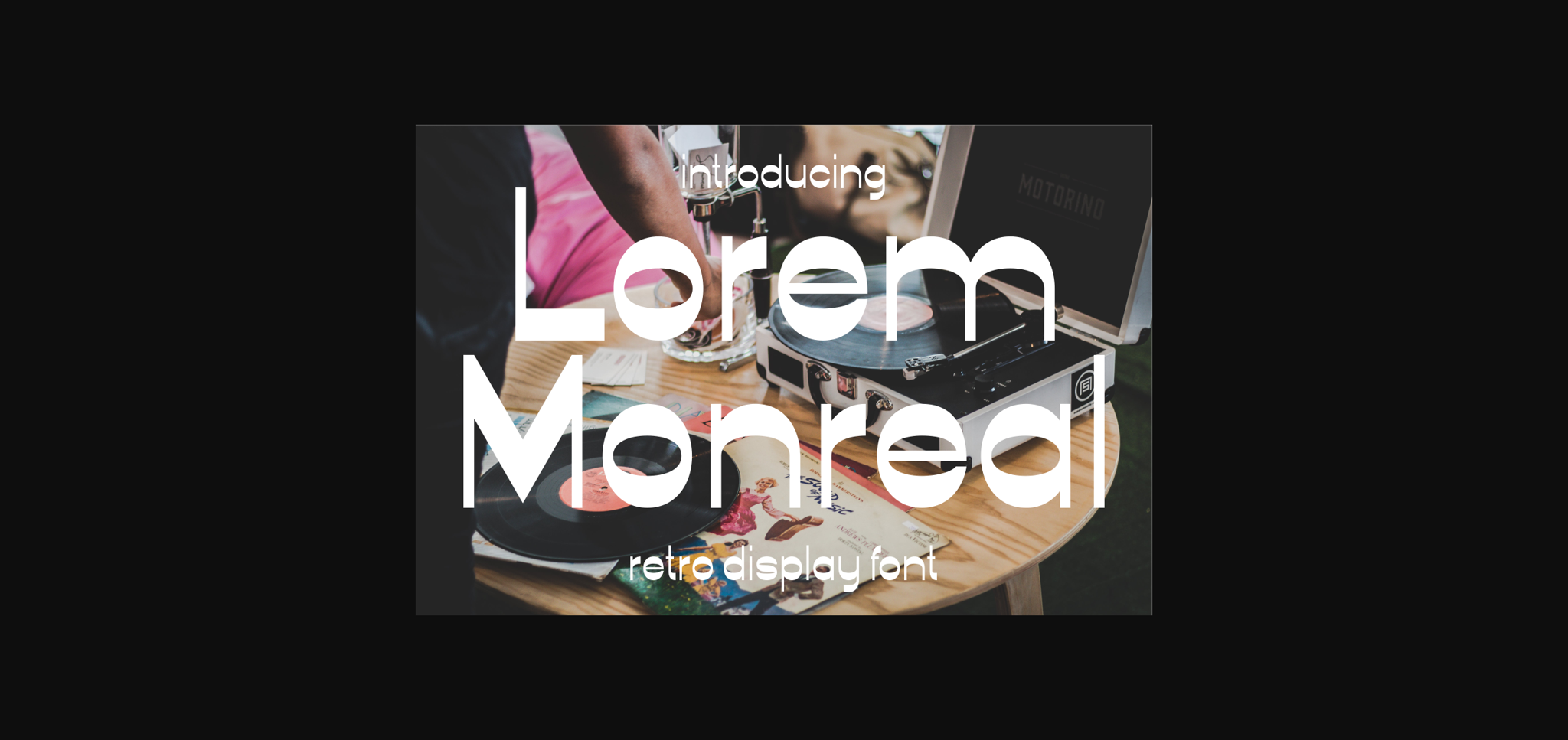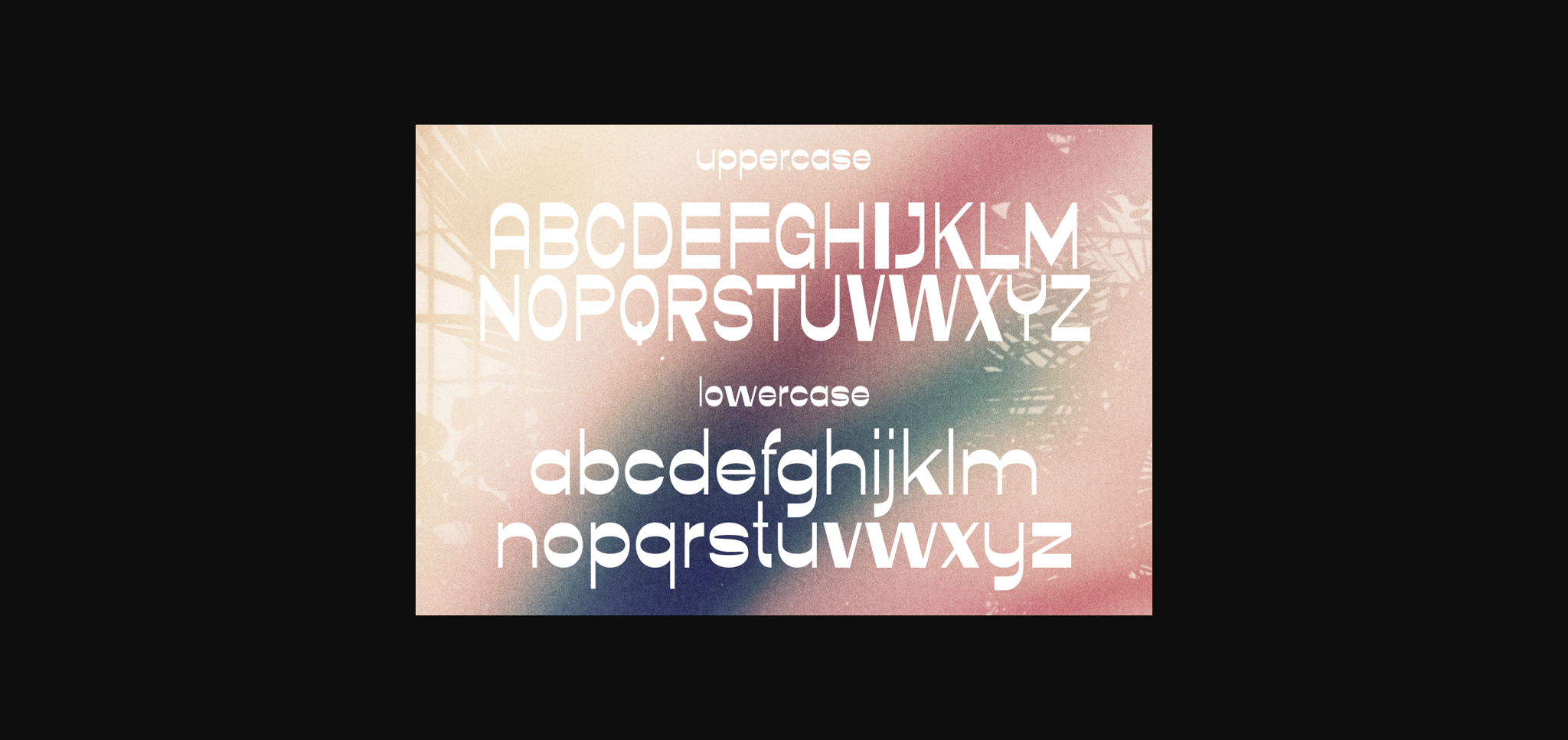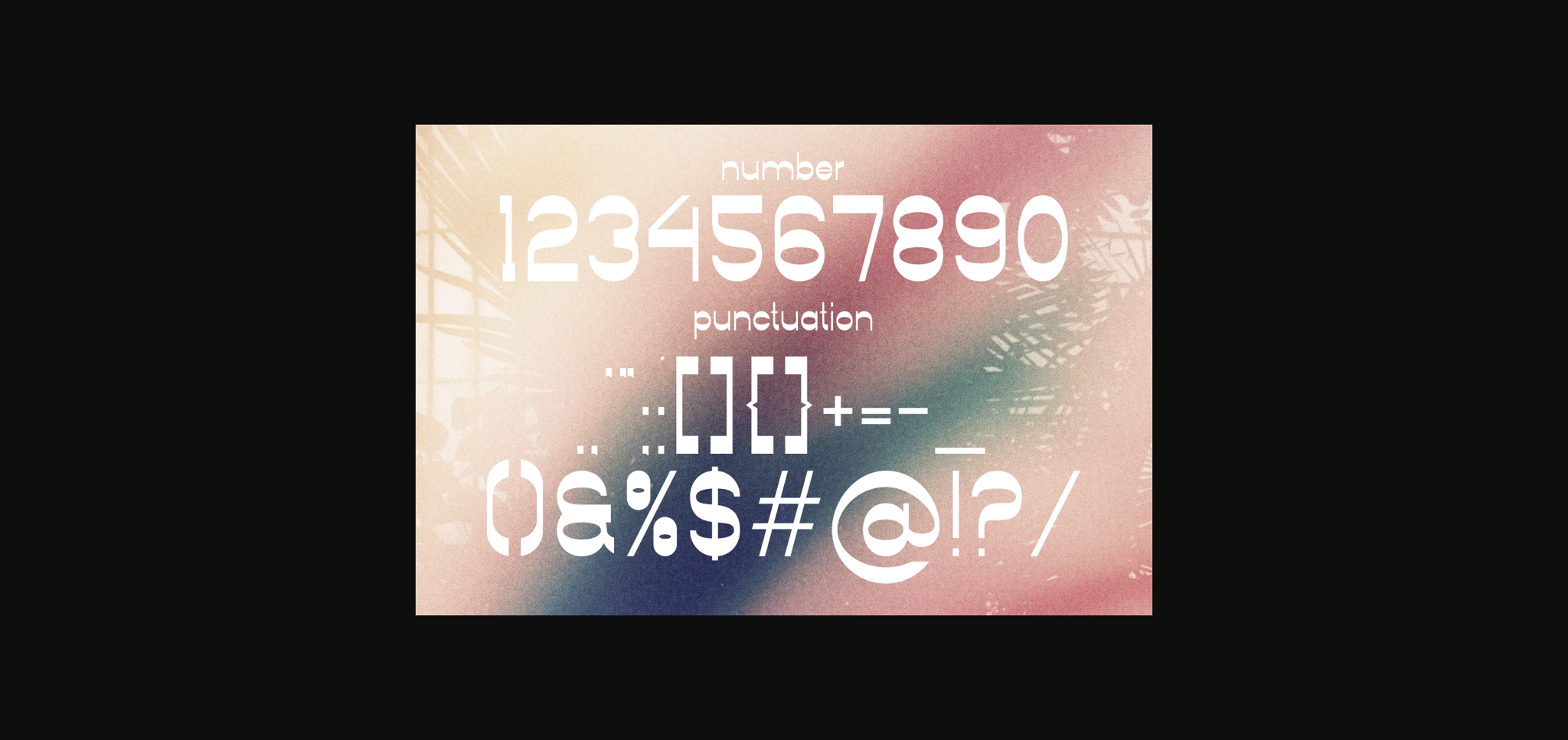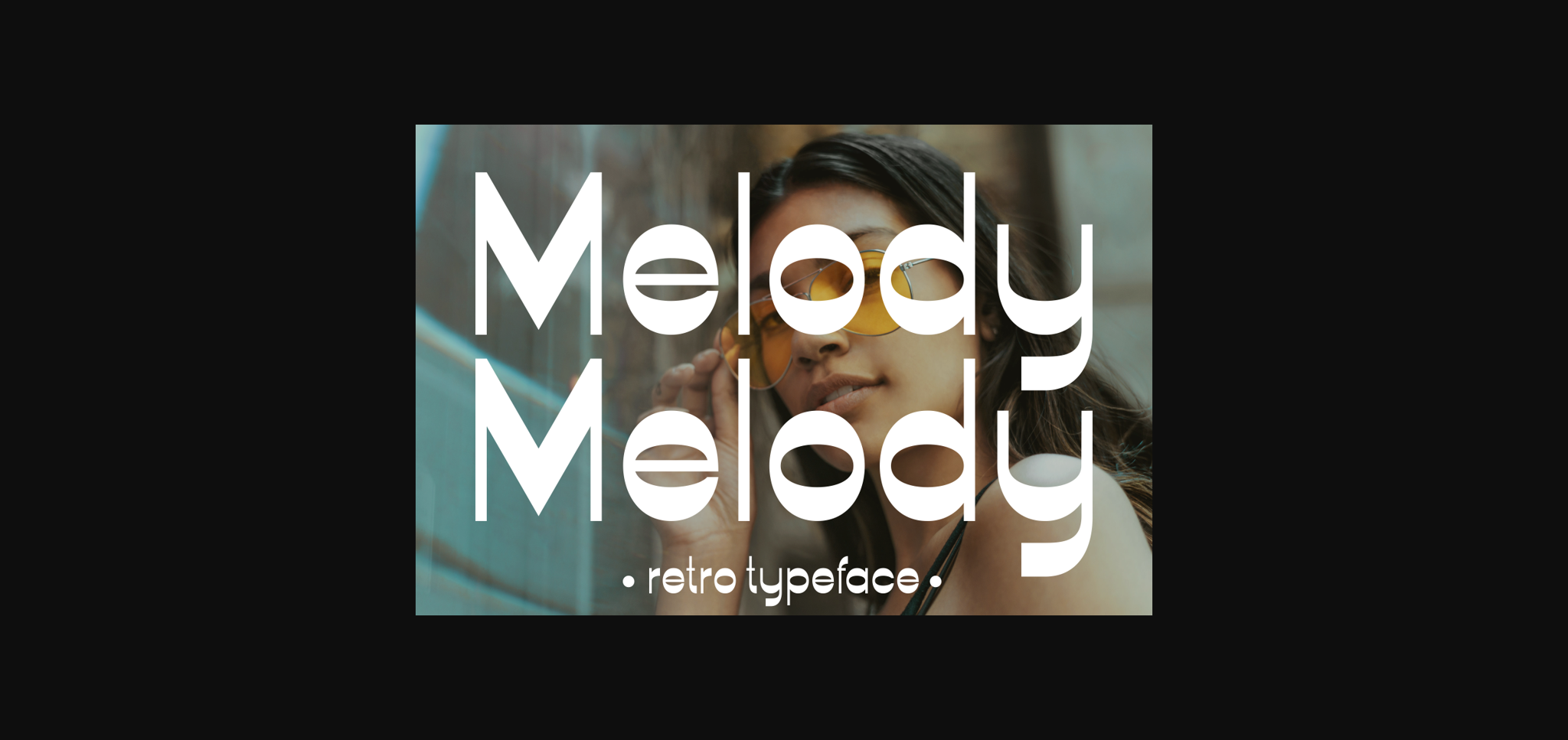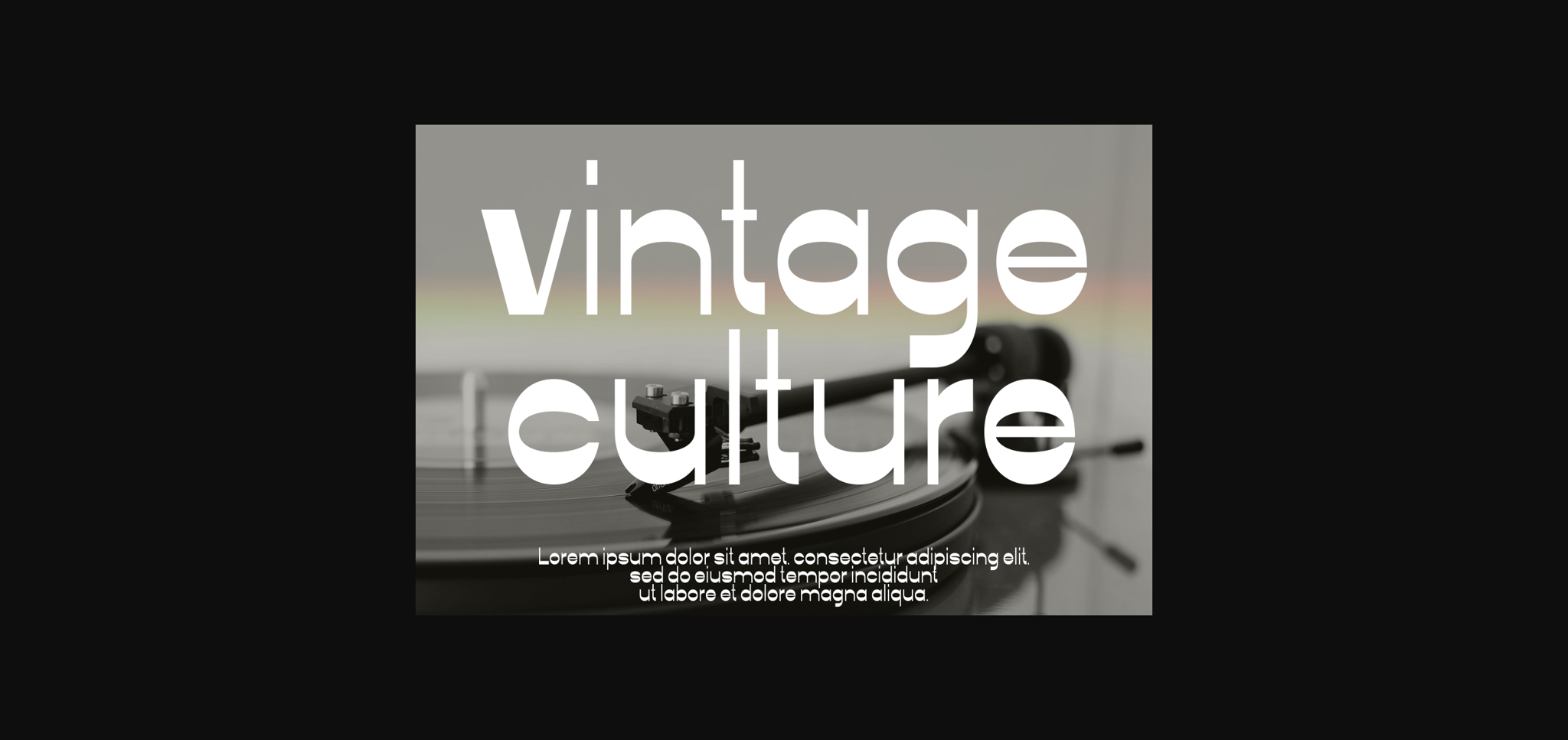
About Lorem Monreal Font
**Lorem Monreal** is an authentic font with a retro look that is perfect for professional needs and product branding. This font is suitable for any branding project like quotes, logos, blog headers, posters, ribbons, letters, invitations, stationery, etc… This font is designed to be versatile and flexible so it can be used in a variety of projects and mediums. extraordinary in a variety of contexts.